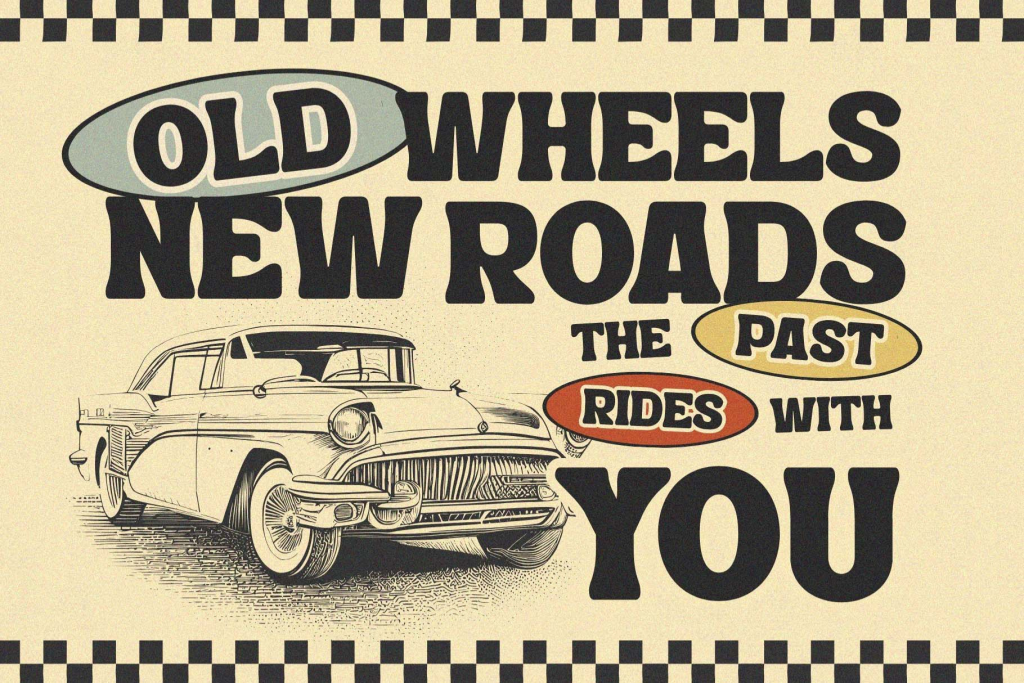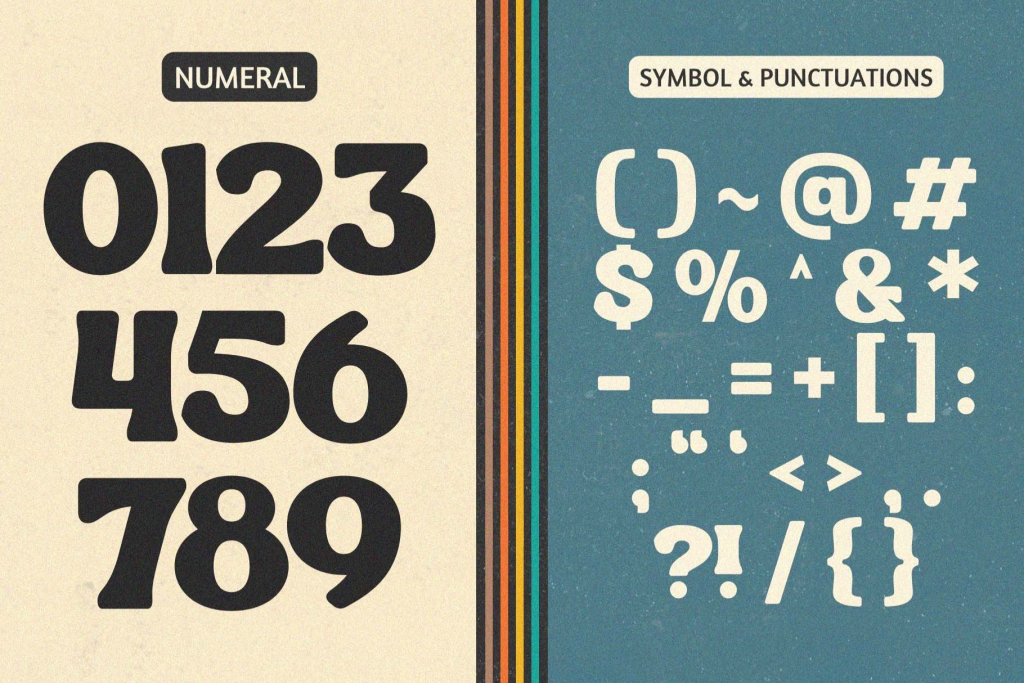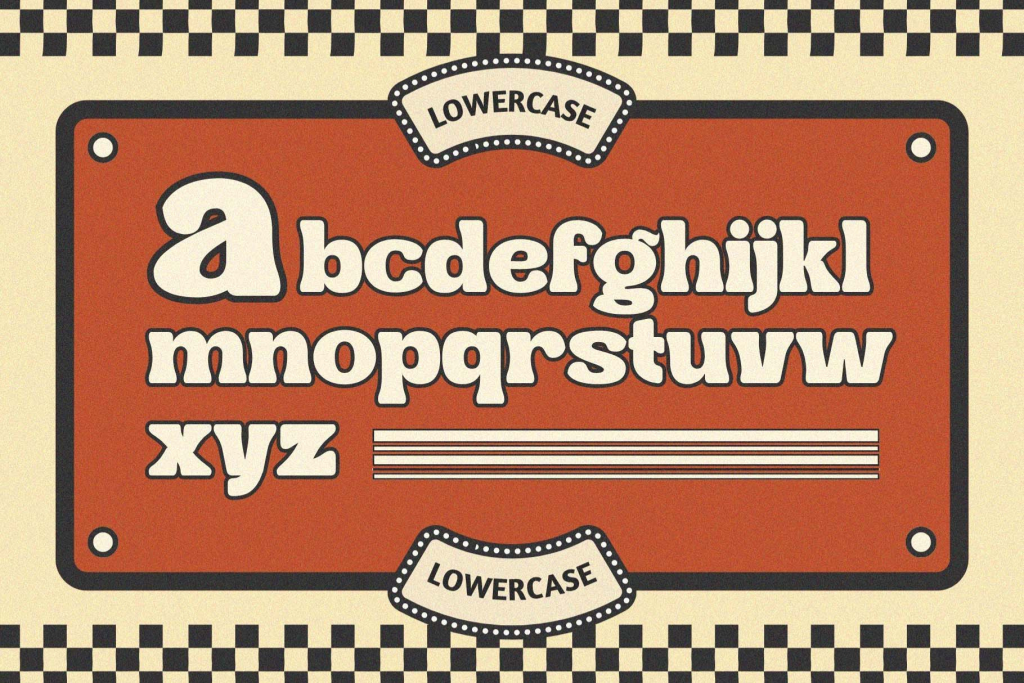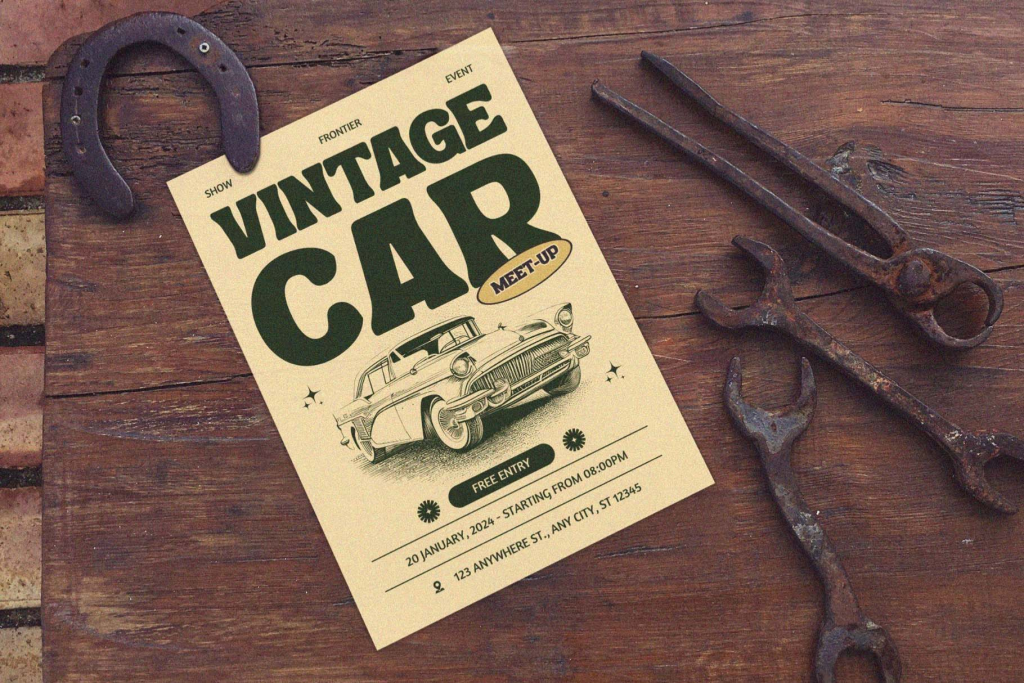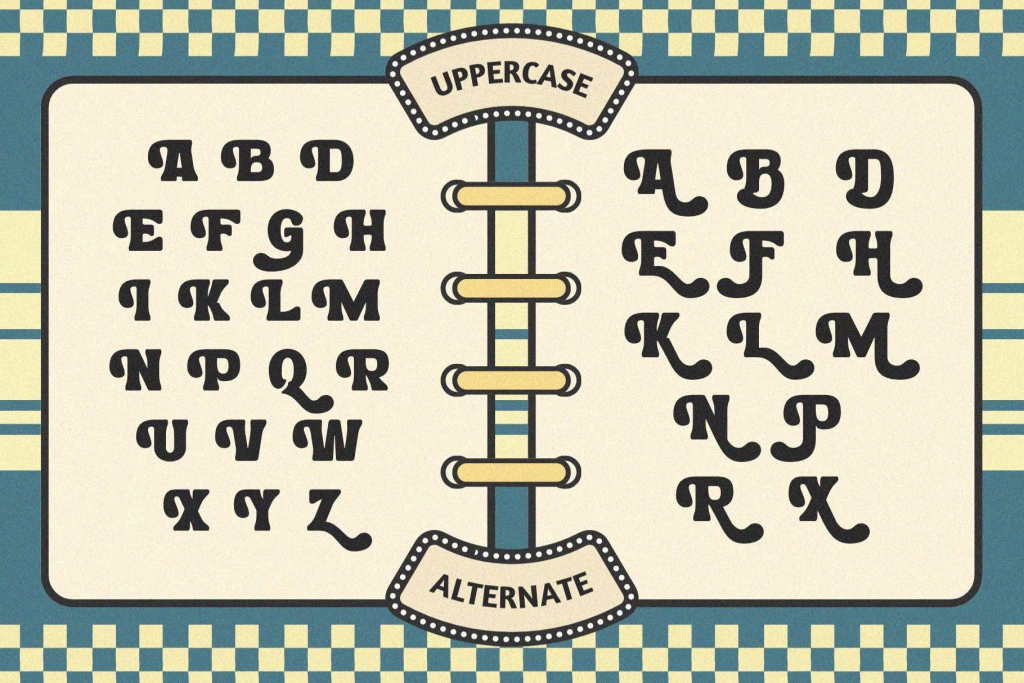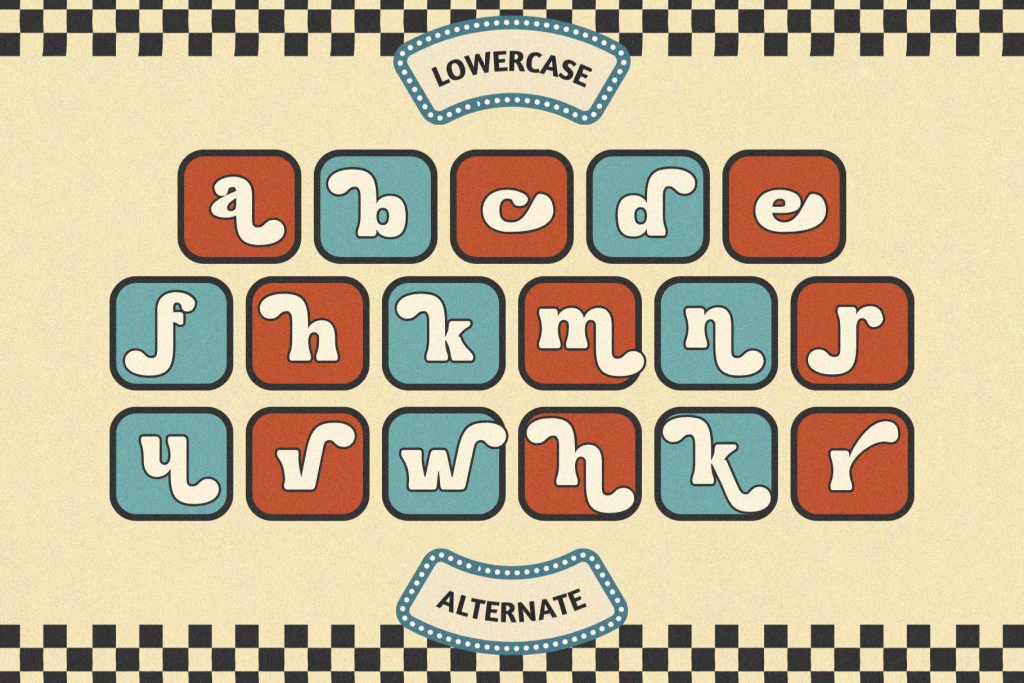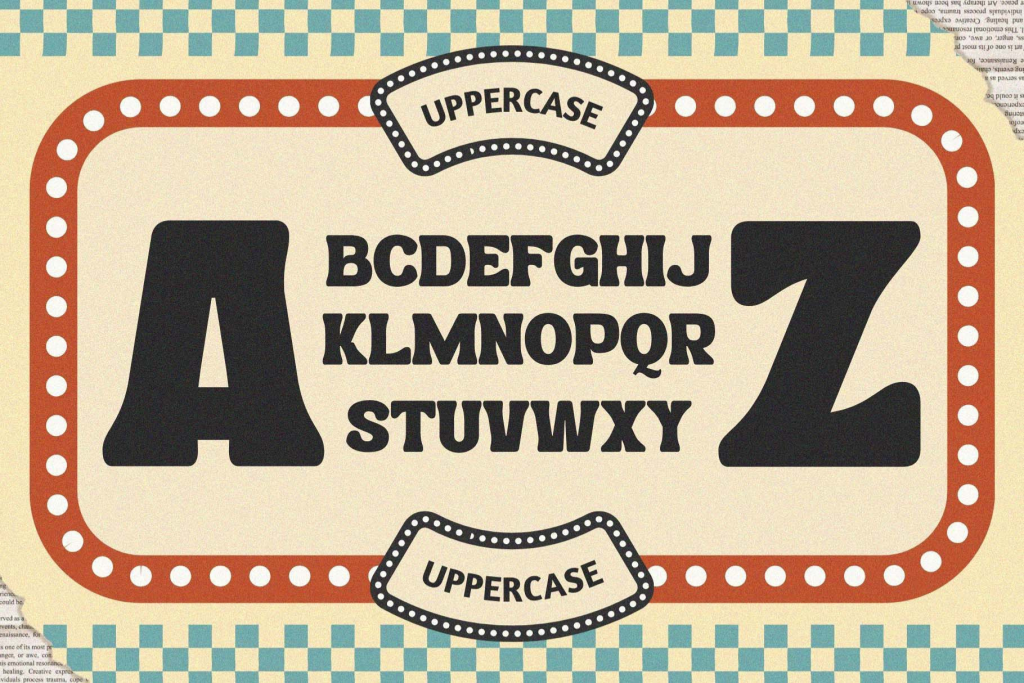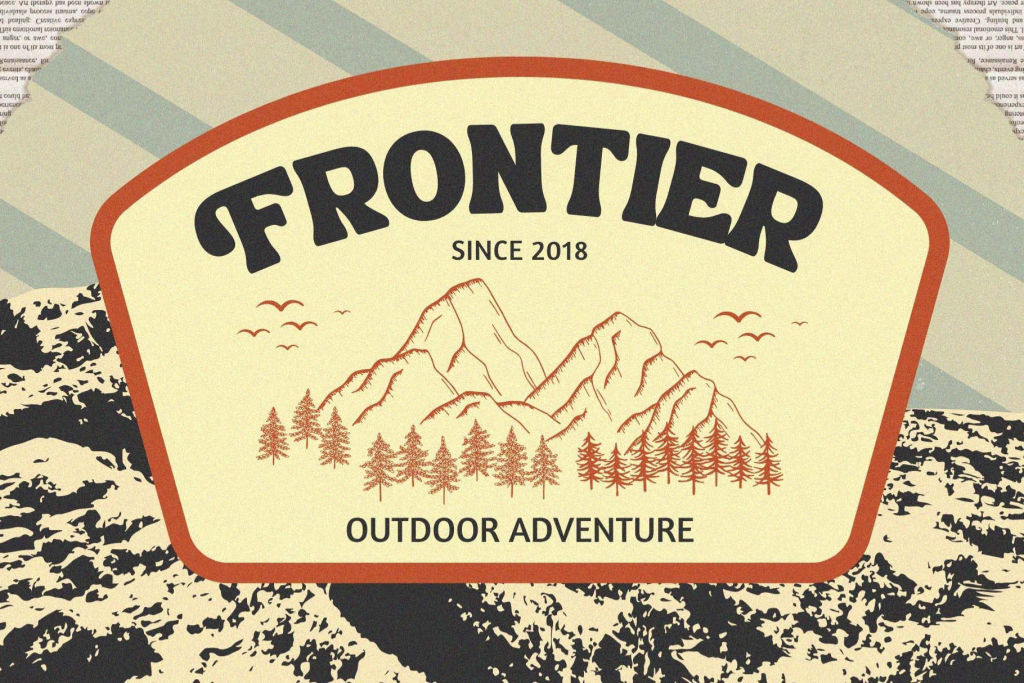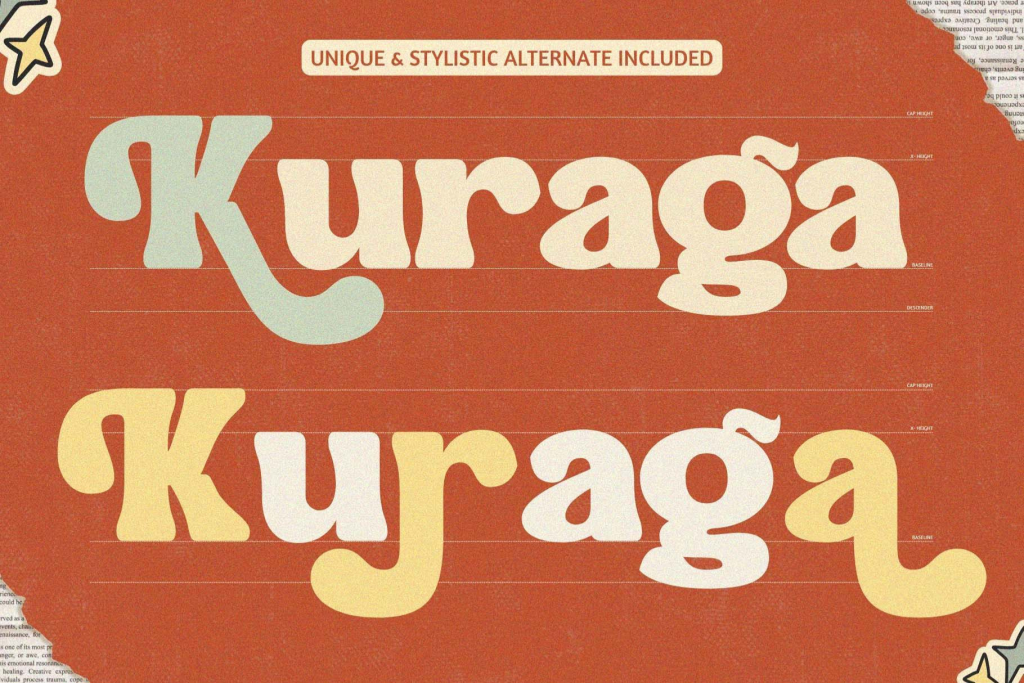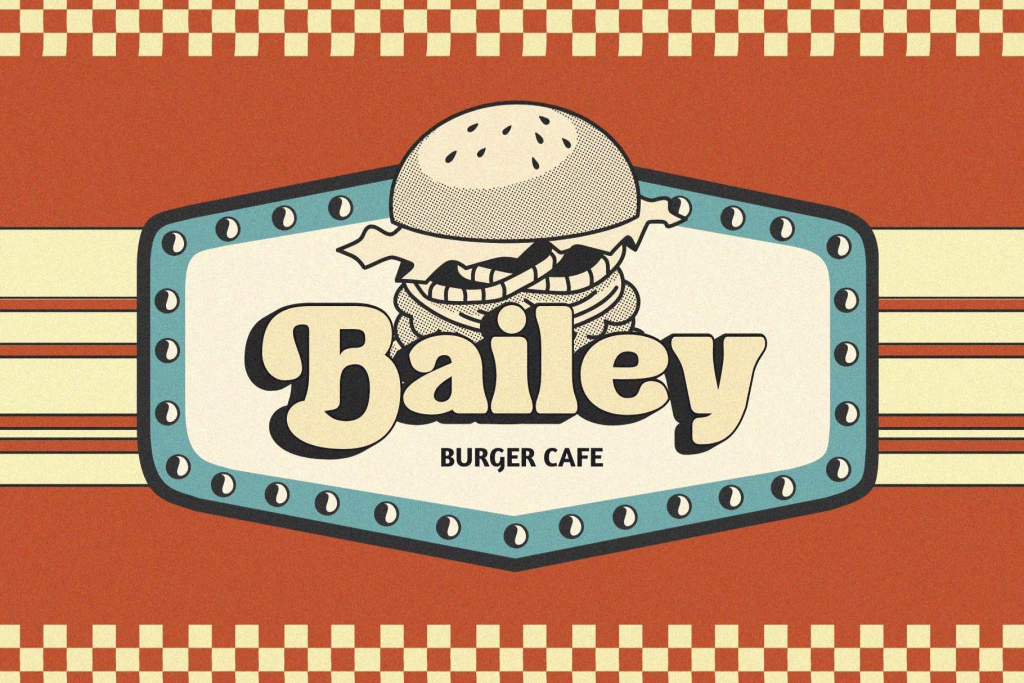
Retro Way offers beautiful typographic harmony for a diversity of design projects, including logos & branding, social media posts, advertisements & product designs.